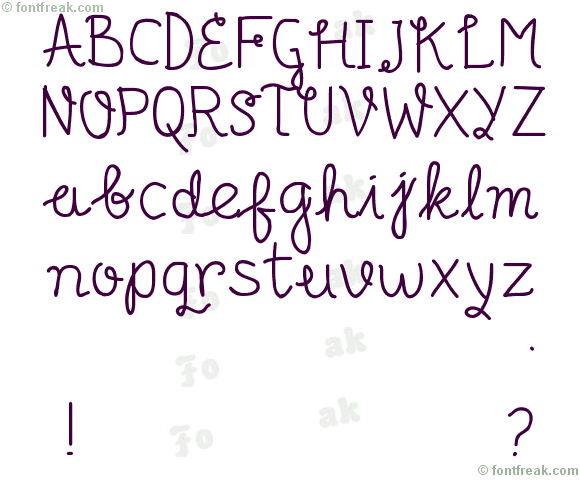
Senyum
Senyum, designed by Adien Gunarta, is a charming handwritten font that exudes warmth and personality. This font falls within the script category, characterized by its fluid and expressive strokes. The design features a moderate stroke weight with gentle contrast, providing an inviting yet legible appearance. The spacing of the letters is thoughtfully crafted, ensuring a harmonious flow that captures the essence of handwritten typography. The playful curves and whimsical flourishes add a decorative touch, making it a delightful choice for various creative applications.
The Senyum font is ideal for wedding invitations, where its romantic style enhances the celebratory feel of the occasion. It also works beautifully on greeting cards, allowing designers to convey heartfelt messages in a unique manner. Additionally, restaurant menus can benefit from Senyum’s friendly aesthetic, making the dining experience feel more personal and inviting. For content creators and social media influencers, this font is perfect for eye-catching quotes and promotional graphics that aim to engage audiences. Small business owners looking to create a distinctive brand identity will find Senyum an excellent fit for logos and packaging designs, as it communicates approachability and creativity.
Targeting graphic designers, small business owners, and content creators, Senyum provides a versatile option for various projects. The font’s distinctive personality makes it stand out in a sea of typical typefaces. Its free availability as a freeware license further enhances its appeal, allowing users to incorporate this charming font into their work without any cost. Whether you’re crafting a heartfelt invitation or designing a fun social media post, the Senyum font free download offers an expressive option that is sure to leave a lasting impression.